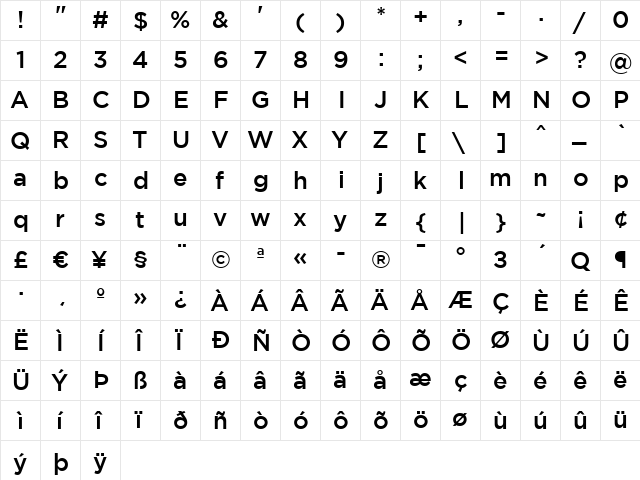
Gotham Medium Regular
Design Context for Gotham Medium Typeface
Gotham Medium takes a measured approach to typography — its balanced proportions and neutral character make it a reliable workhorse for both digital and print work.
Pro Tip: Pair Gotham Medium with a font of contrasting weight or personality to build a more expressive typographic hierarchy.